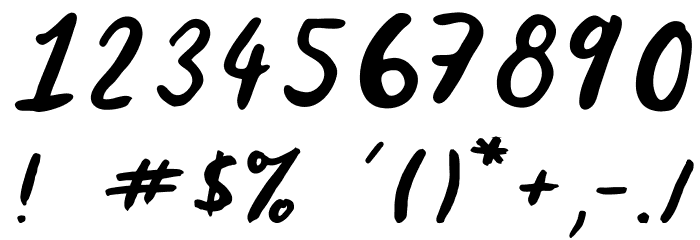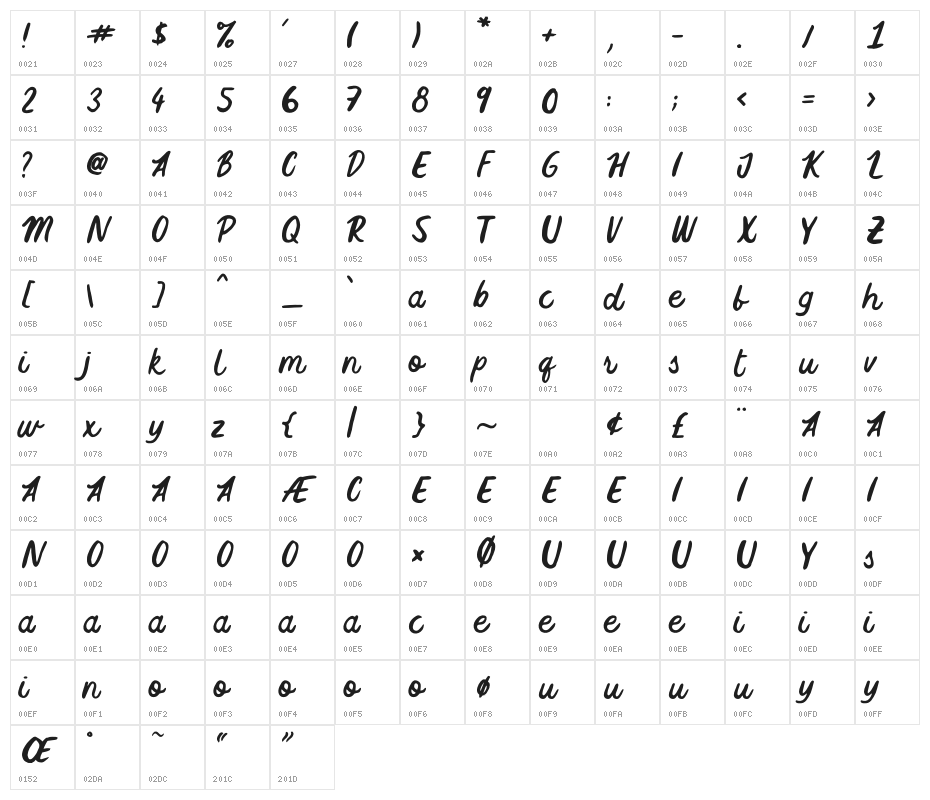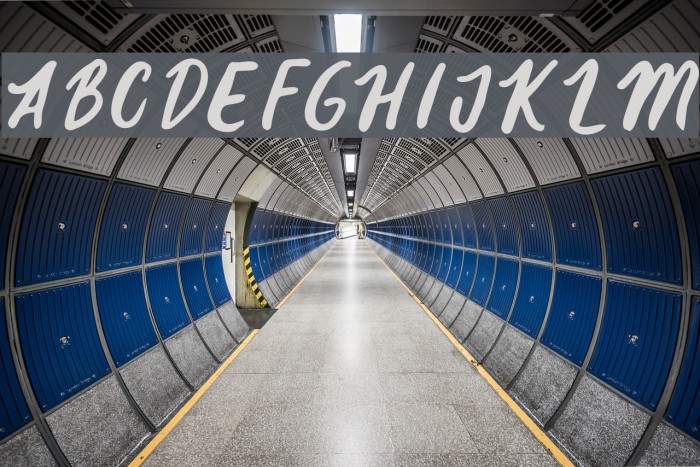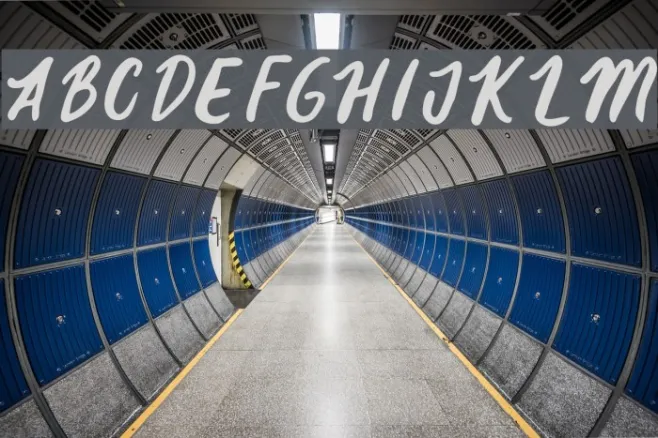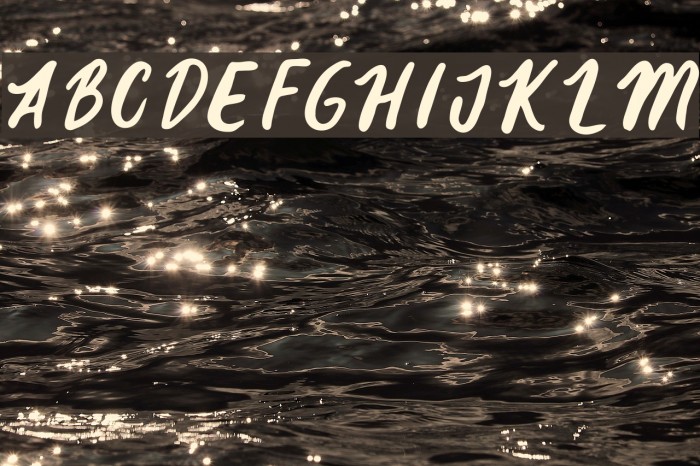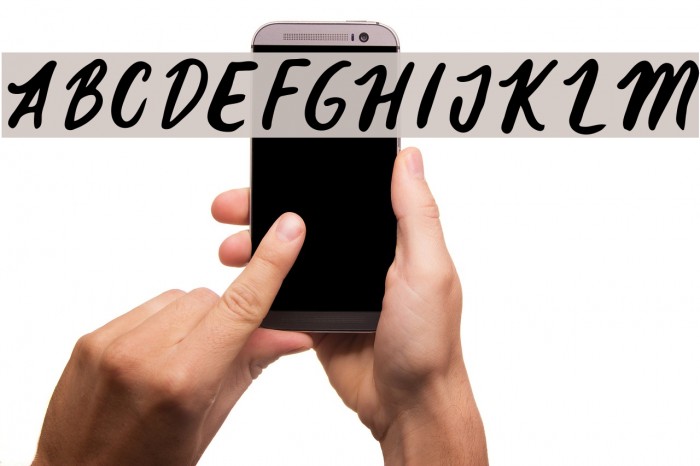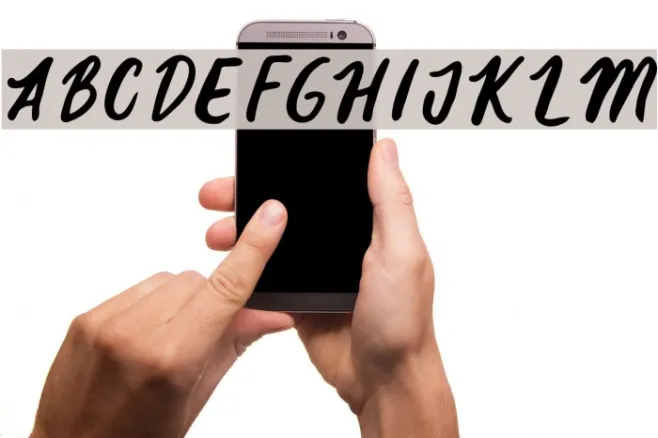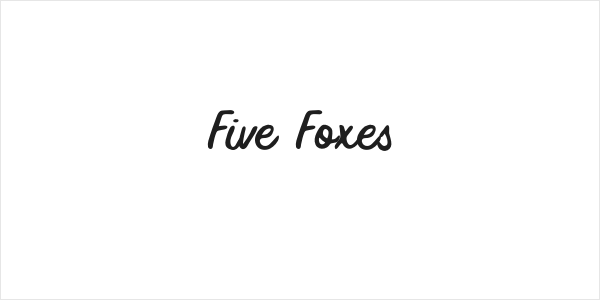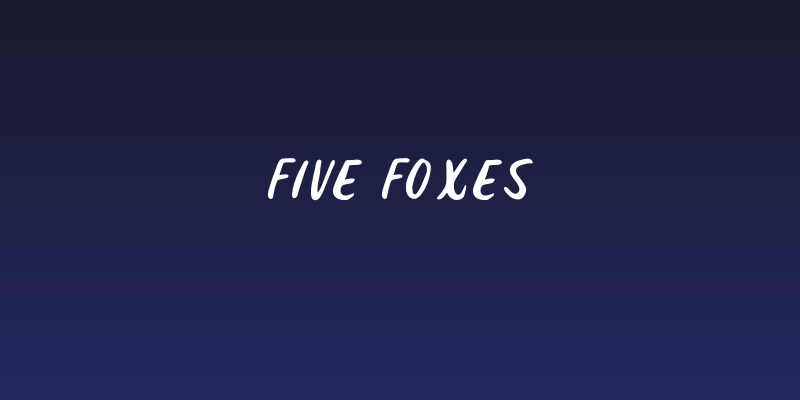
Five Foxes Font
Five Foxes Description
This font exhibits a lively and dynamic handwritten style, characterized by its fluid and cursive strokes. The letters are slightly slanted, giving it a casual yet elegant appearance. The uppercase and lowercase letters maintain a consistent flow, with rounded edges and smooth curves that enhance readability. The numbers and special characters follow the same stylistic approach, ensuring uniformity across all characters. The font's playful nature makes it suitable for projects that require a personal touch, while its clear legibility ensures it remains functional.
| Overall Style | Casual, Elegant |
| Proposed Projects | Ideal for greeting cards, invitations, personal branding, and creative projects that benefit from a handwritten touch. |